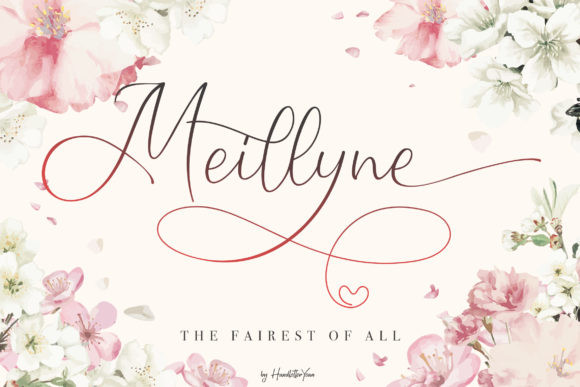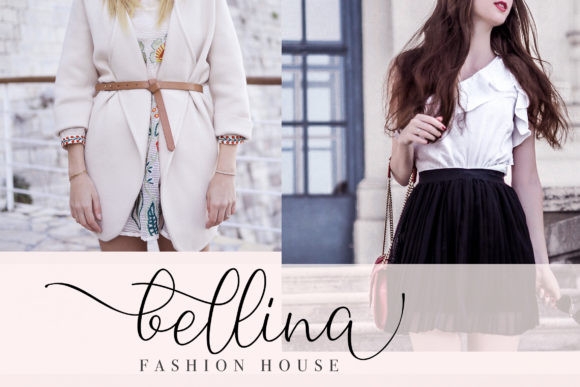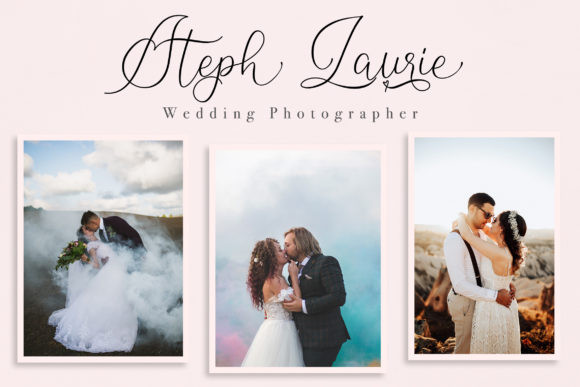
Meillyne Font
Meillyne is a truly gorgeous and magical script with a unique calligraphic style. Fall in love with its gorgeous swashes and add a decorative touch to any project in an instant.